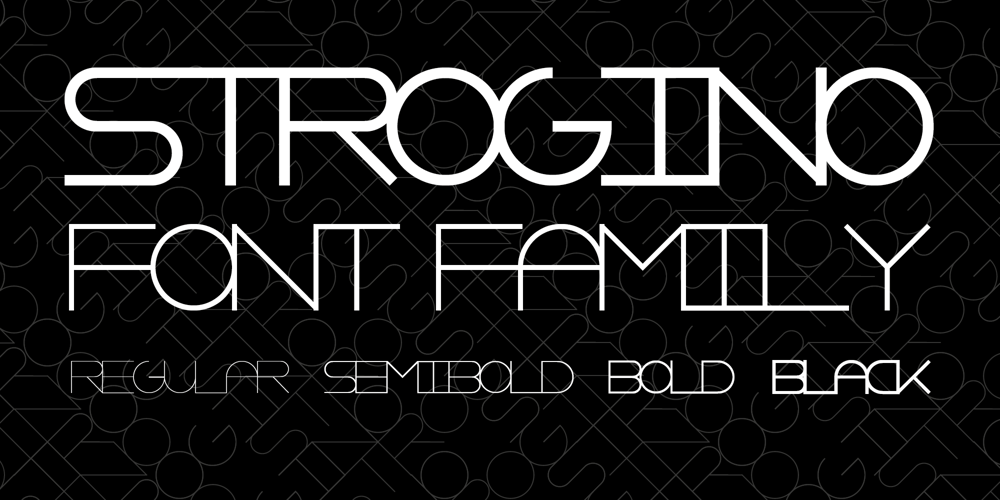
Strogino Font Family was designed by Roman Maganet and published by maganet. Strogino contains 4 styles and family package options. Strogino is a modern display pseudo-monospaced sans serif font. Due to the special design and some variants, all letters are easily identifiable though stuck together.It is as geometric as possible, being made with the simplest forms, capital letter sizes are exactly square. This allows to even create seamless patterns for backgrounds and watermarks. Diacritic can be added to any letter or even symbol and number, giving in total more than 1500 combinations! Strogino is perfect for logos, headings, titles, inscriptions, overlay text, backgrounds, and many more! Short paragraphs or quotes also look great with it. The font is named after Strogino (Russian: Строгино), a district in northwest Moscow, where the designer Roman Maganet came from.You can read more about making this font here.